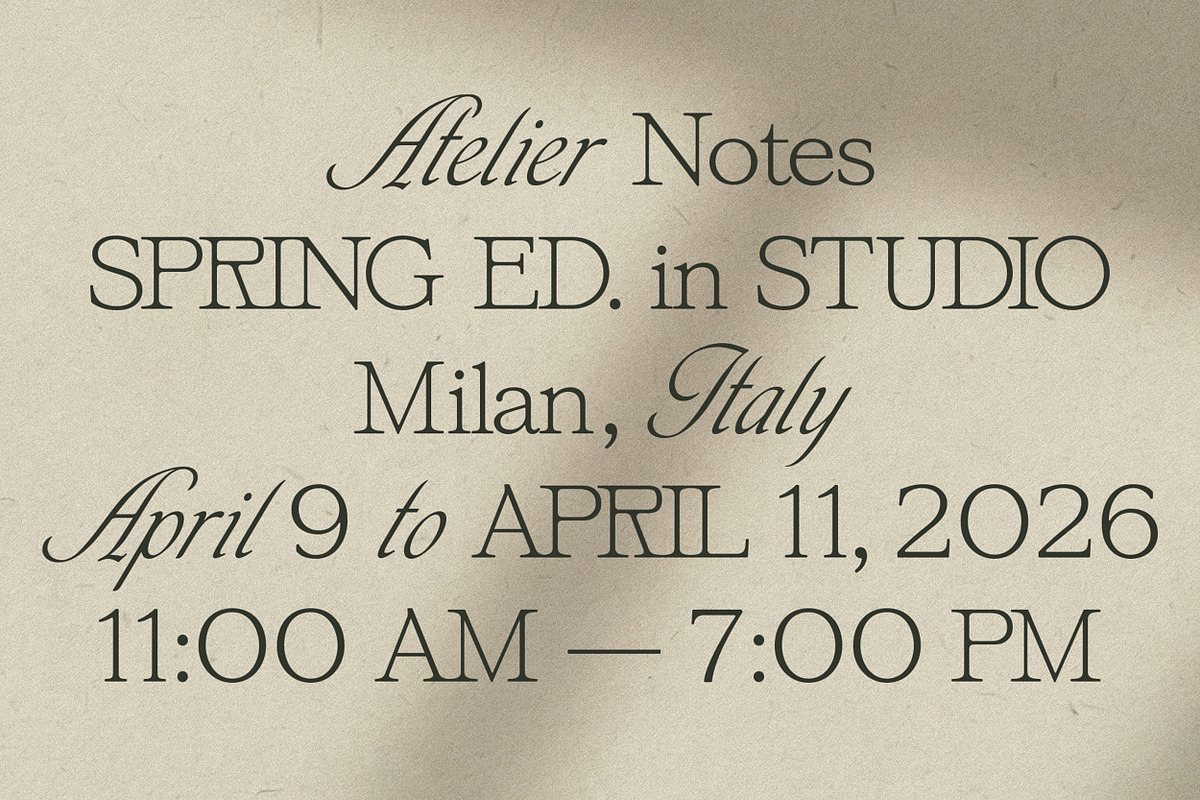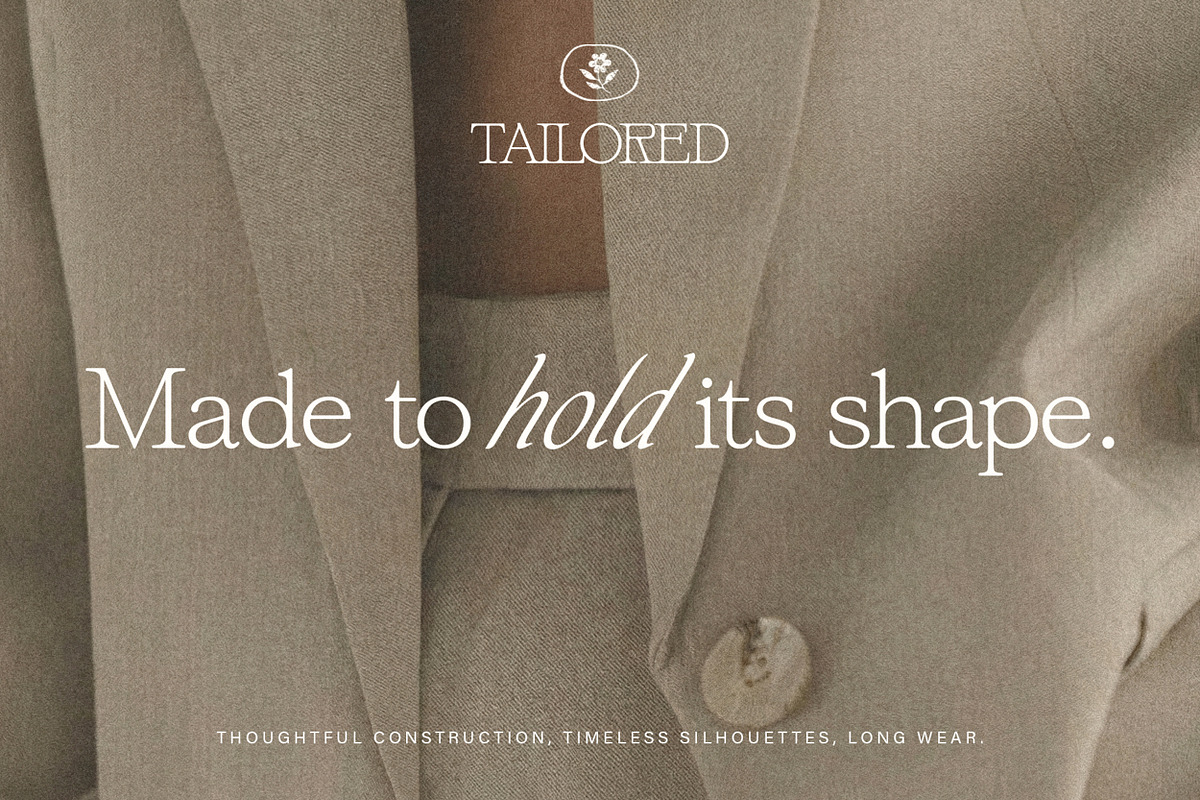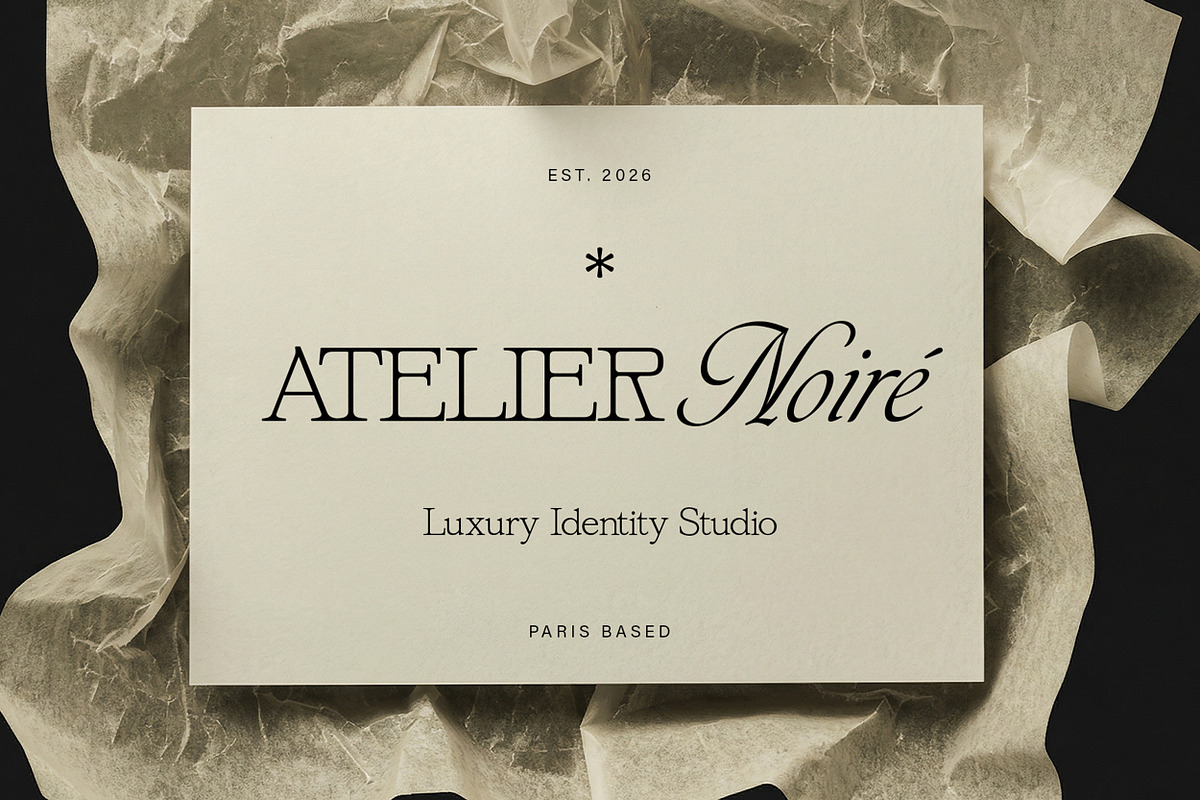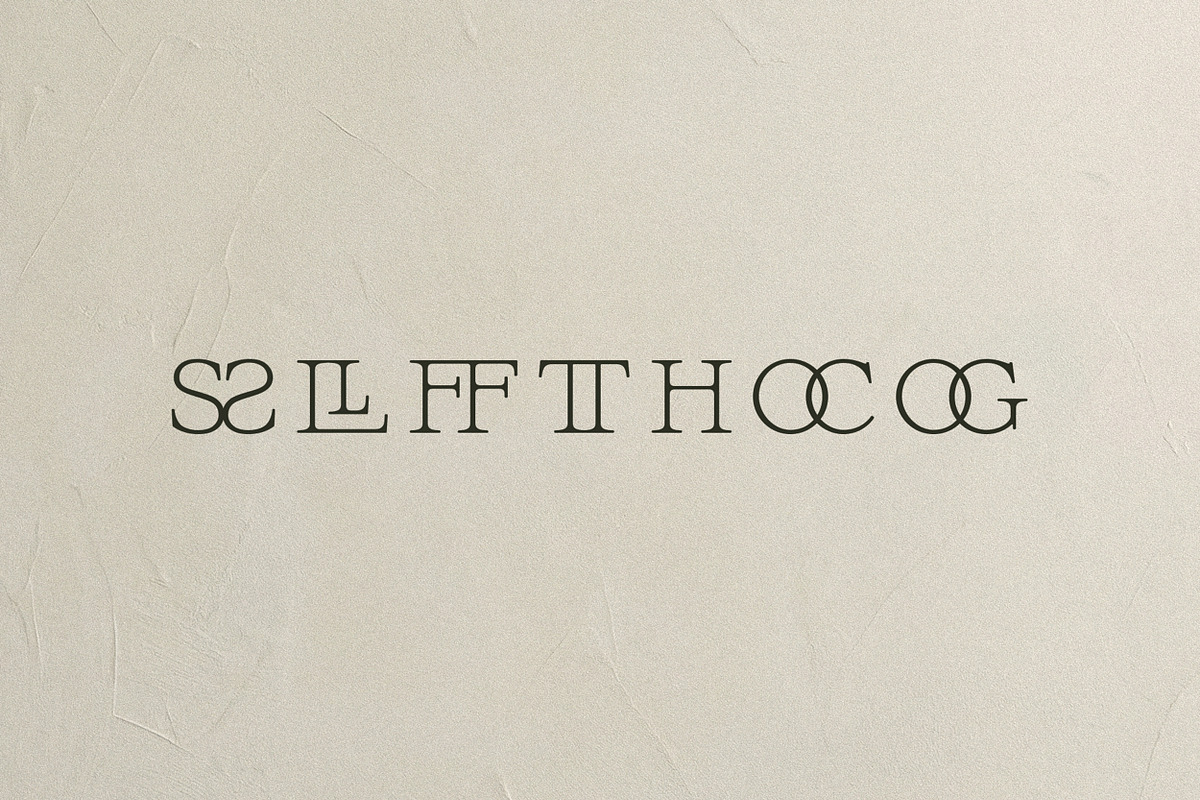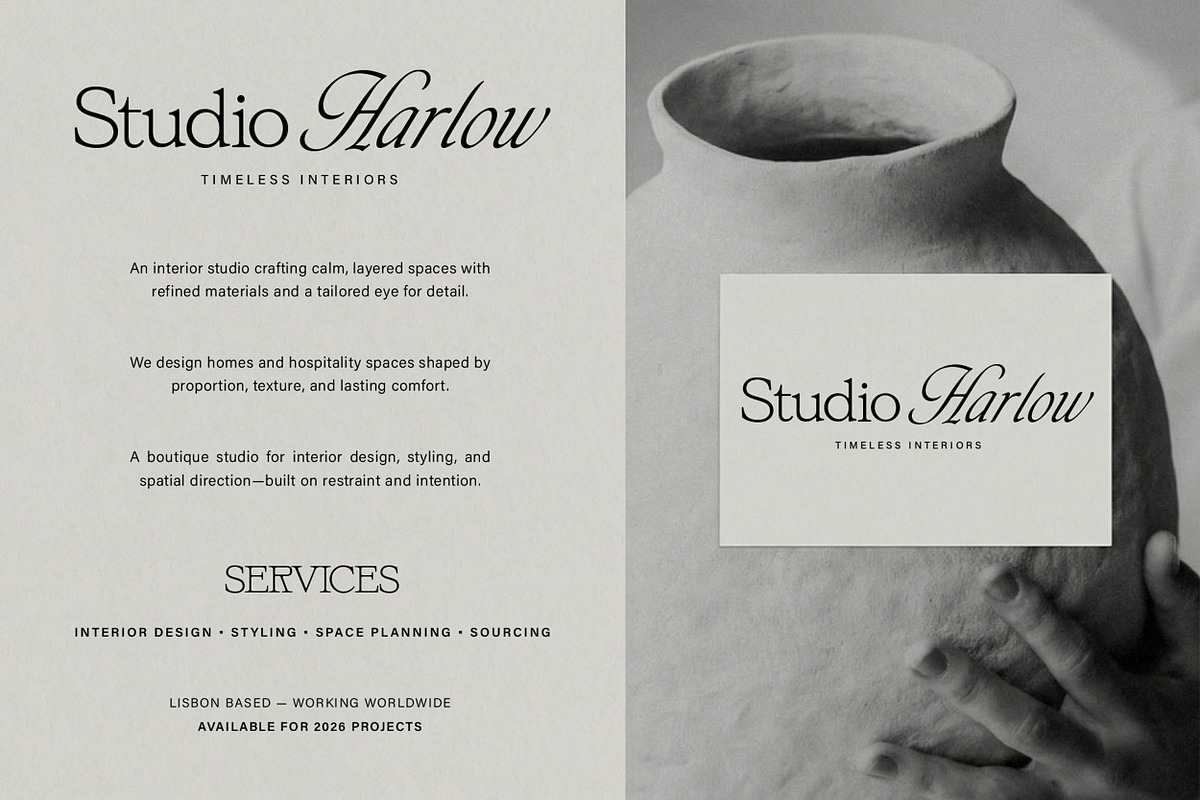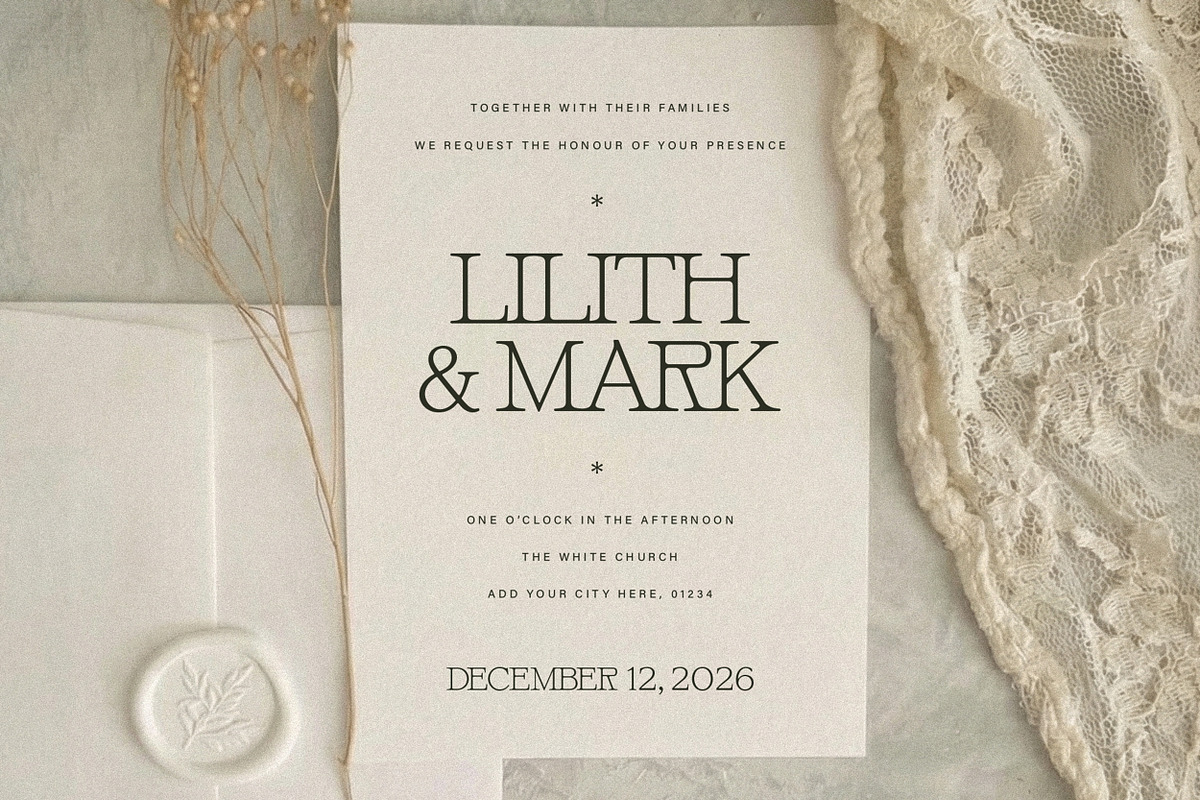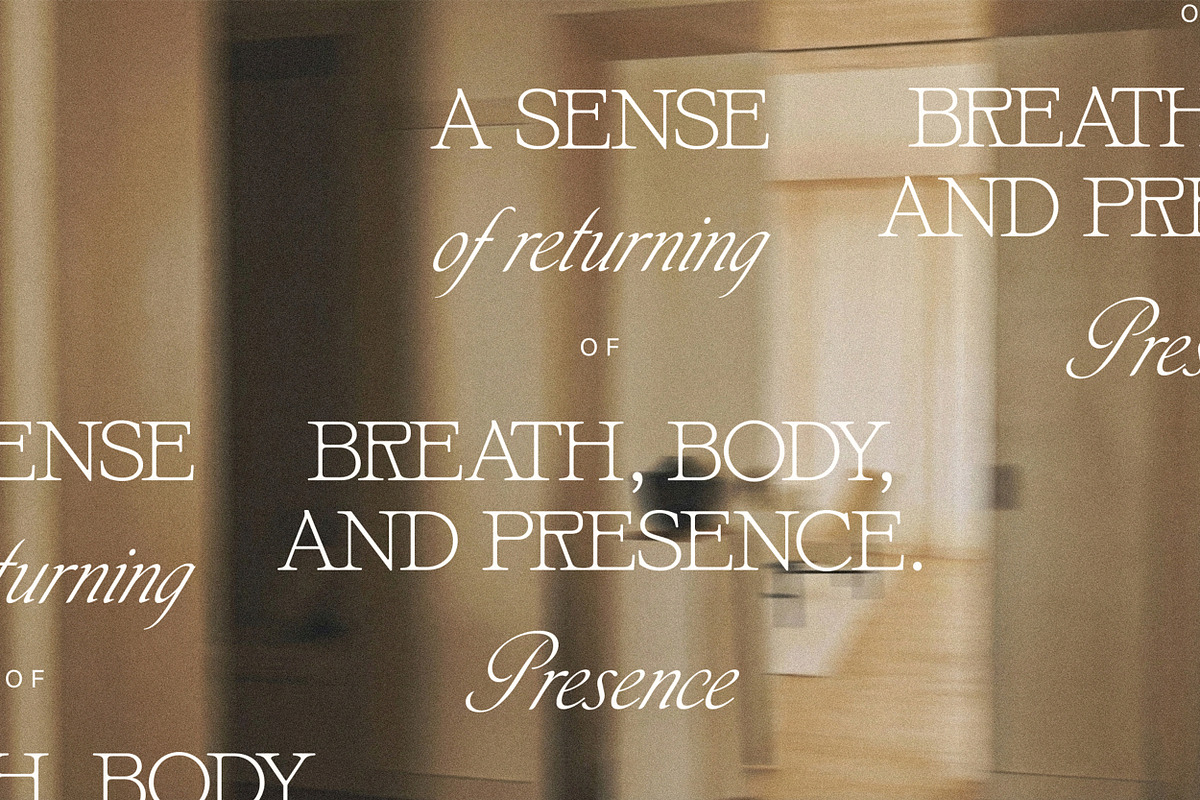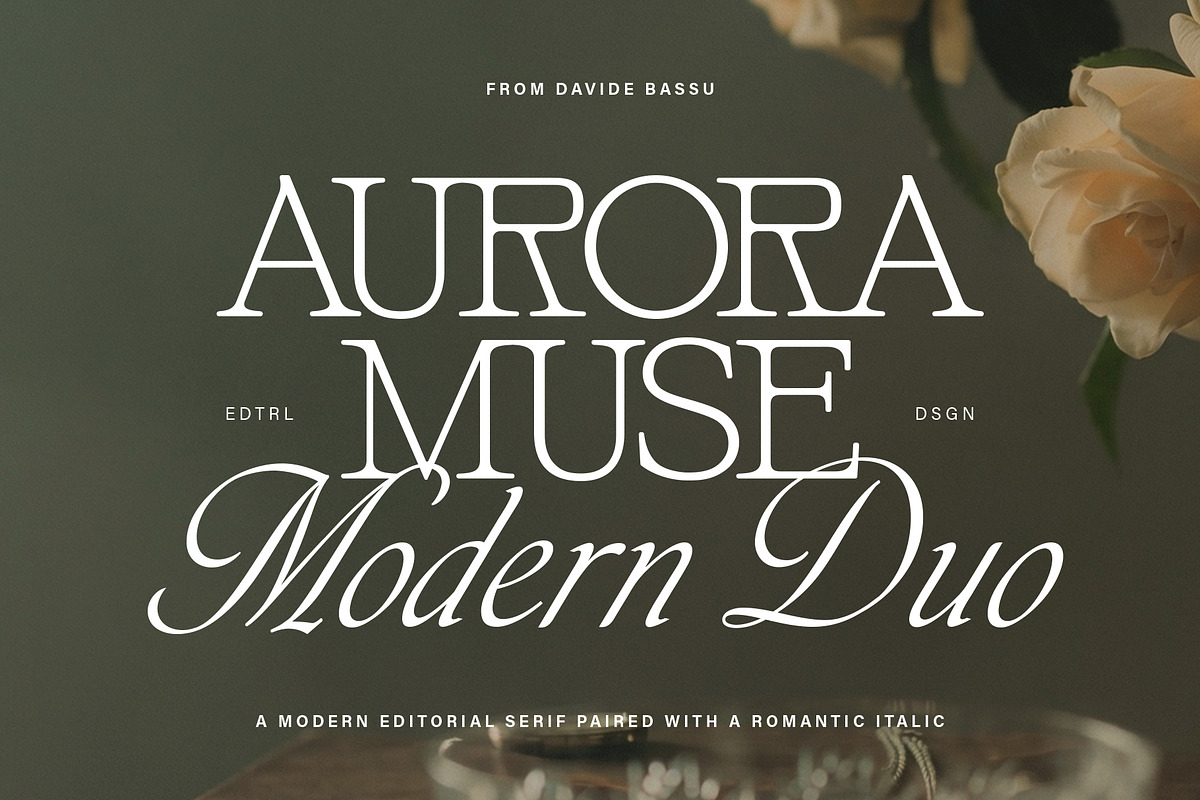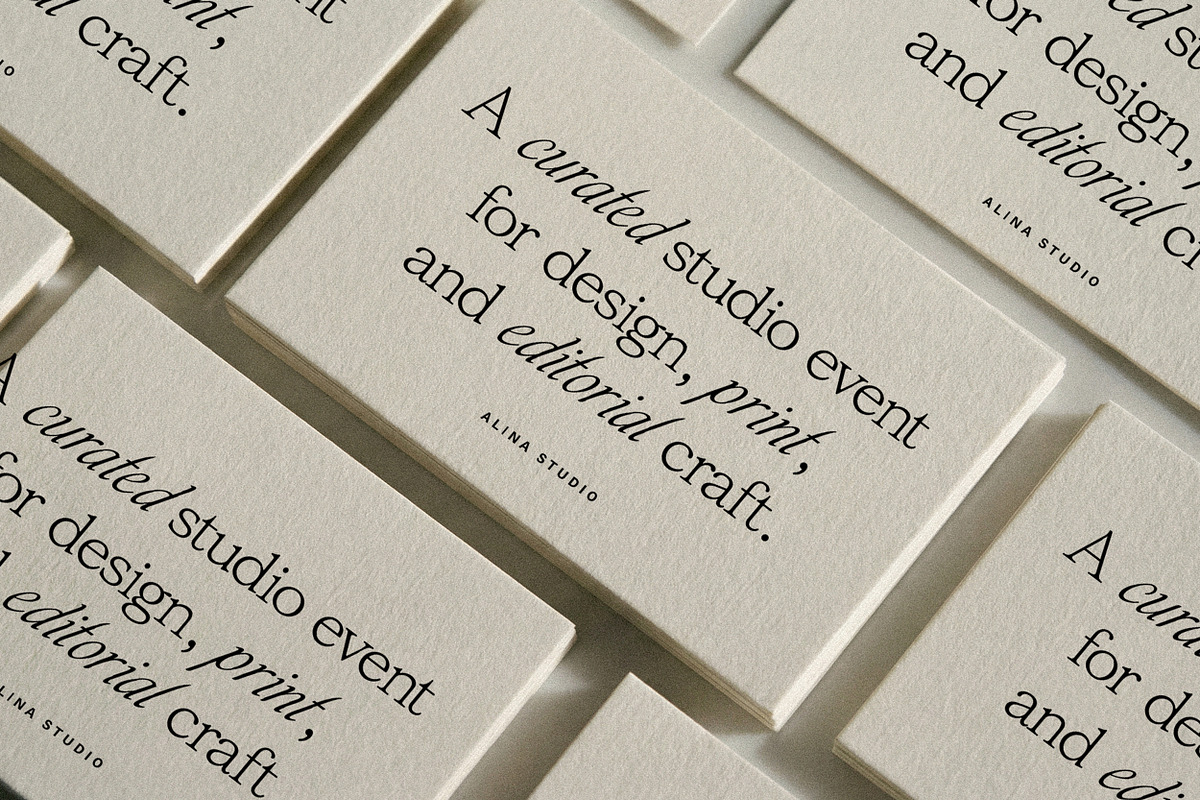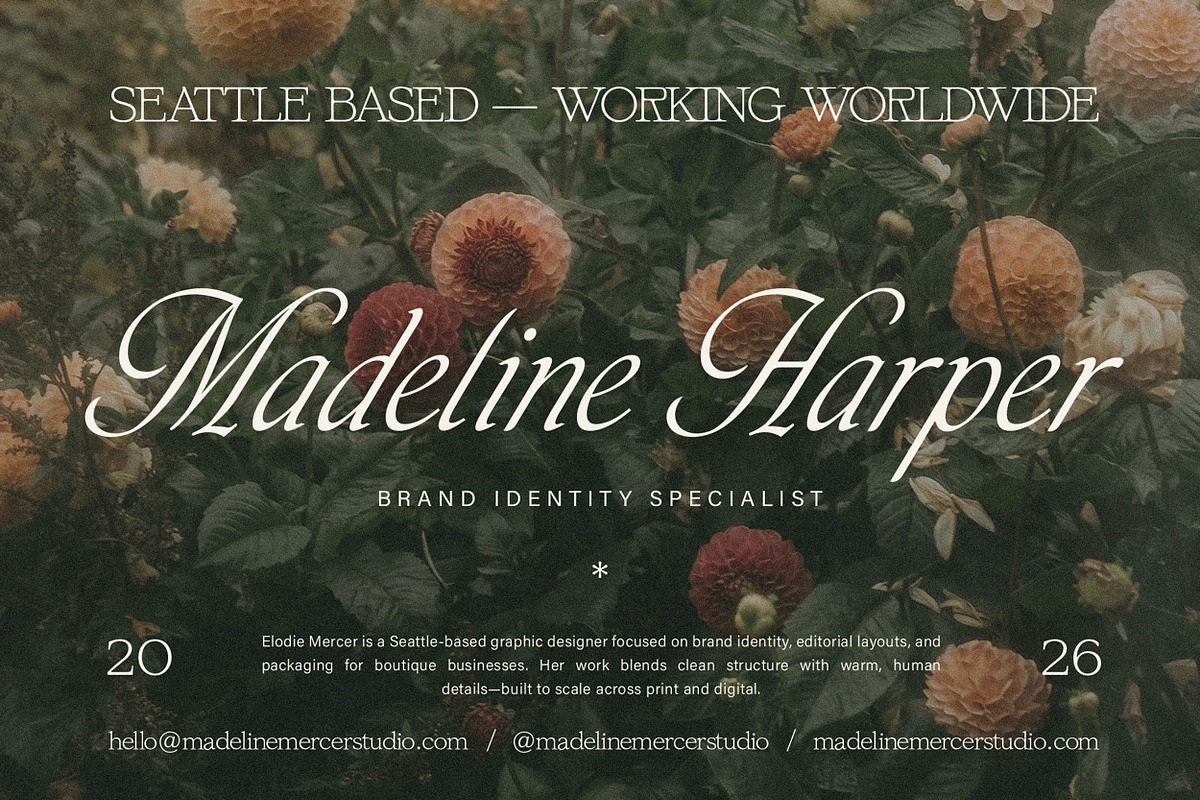
Aurora Muse - Modern Duo
Aurora Muse is a refined, editorial-driven type pairing designed to bring instant sophistication to modern brands. The serif is clean, structured, and high-contrast—perfect for striking headlines, elegant wordmarks, and confident layouts—while the romantic unconnected italic adds softness and movement for quotes, signatures, subheads, and tasteful accent lines. Together they create a balanced system: bold but never loud, classic in spirit yet contemporary in execution.
Built with real-world branding in mind, Aurora Muse shines across premium identity projects, magazine-style layouts, packaging, lookbooks, wedding stationery, menus, and web design—anywhere you need clear hierarchy, elevated tone, and a cohesive serif + script contrast. Expect crisp readability, graceful curves, and a timeless feel that photographs beautifully on paper textures and minimal mockups.
The character set is built for international use, with full coverage for English, Italian, French, Spanish, Portuguese, German, and Dutch, plus Nordic languages (Danish, Norwegian, Swedish, Finnish). It also includes extensive Central & Eastern European support such as Polish, Czech, Slovak, Hungarian, Romanian, Croatian, Slovenian, Bosnian/Serbian (Latin), Latvian, Lithuanian, Estonian, Albanian, and Turkish—so your typography stays consistent across markets.